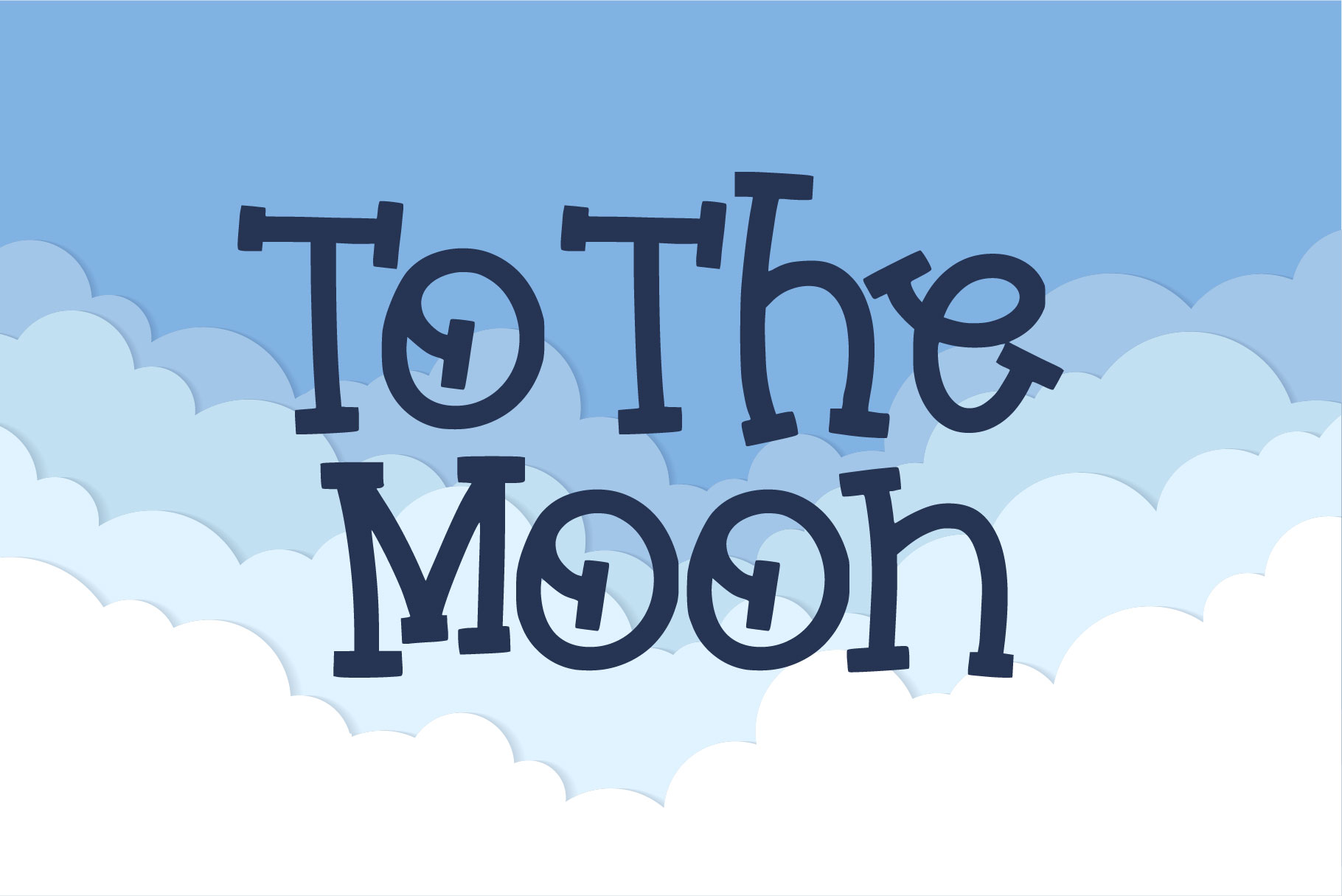
Monthly Goals A Playful Font
It is perfect for headings, flyer, greeting cards, product packaging, book cover, printed quotes, logotype, apparel design, album covers, etc.